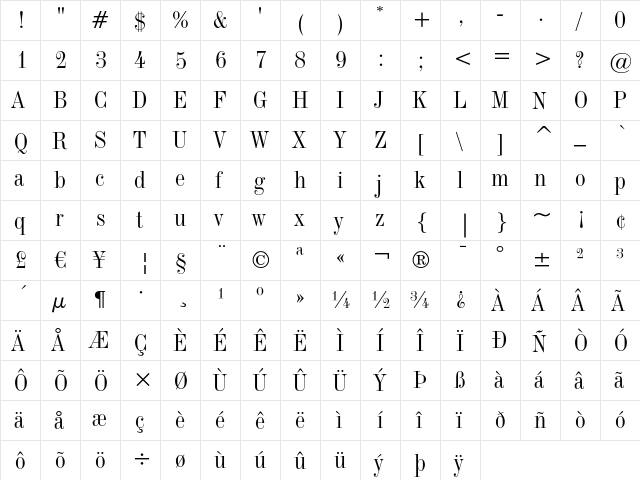
Industrial 736 Regular
Design Context for Industrial 736 Typeface
Industrial 736 is a composed and adaptable typeface that performs quietly and consistently across a wide range of design contexts.